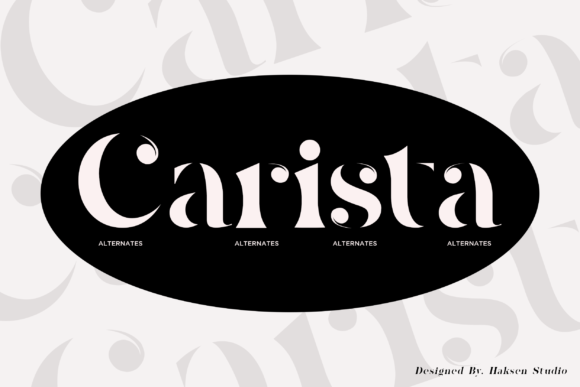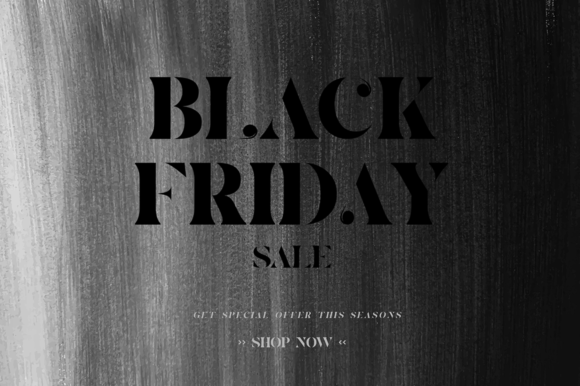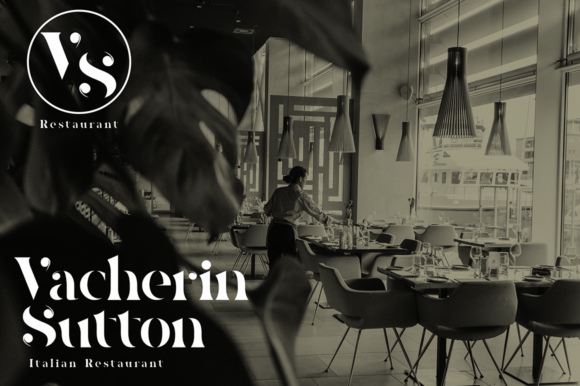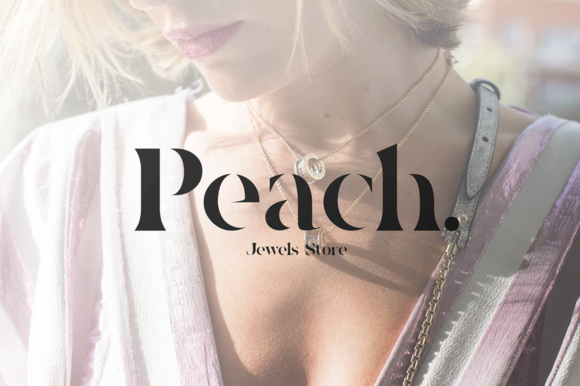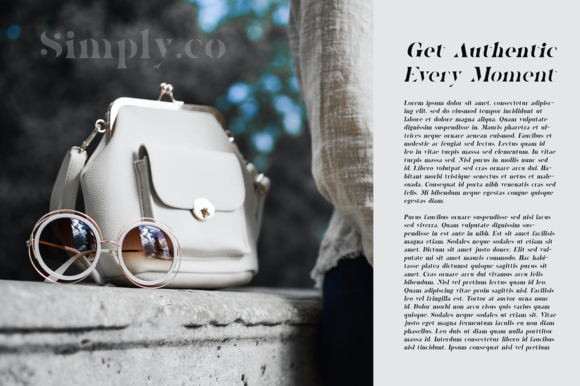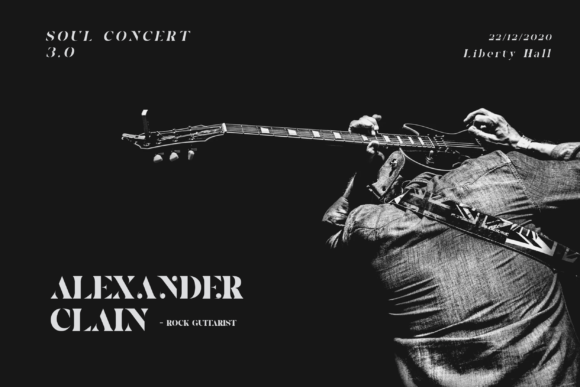
Introducing Carista Font: Elevate Your Designs with Elegance and Sophistication
In the world of typography, a font can make or break a design. For designers and crafters seeking a modern and elegant serif font, Carista Font is an exceptional choice. With its refined lines and classic appeal, Carista is perfect for a wide range of applications, from logos and wedding invitations to headings, t-shirts, and more.
What Makes Carista Font Stand Out?
Carista Font boasts a unique blend of modernity and sophistication, making it an ideal choice for designers looking to add a touch of elegance to their work. Its serif design lends a sense of tradition and reliability, while its clean lines and precise curves give it a contemporary feel. This versatile font can be used in various contexts, ensuring your designs always look polished and professional.
Versatility at Its Best: Use Cases for Carista Font
One of the key benefits of Carista Font is its incredible versatility. Here are some of the many ways you can use this beautiful font:
• Logos: Create a lasting impression with a logo that exudes elegance and sophistication.
• Wedding Invitations: Add a touch of romance and luxury to your wedding invitations and save-the-date cards.
• Headings: Elevate your blog posts, articles, and website content with stylish and readable headings.
• T-Shirts: Design eye-catching apparel with a font that’s both modern and timeless.
• Letterhead: Give your business correspondence a professional boost with elegant letterhead.
• Signage: Make your signs stand out with a font that’s clear, readable, and visually appealing.
• Labels: Add a touch of sophistication to your product labels and packaging.
• News: Use Carista Font for newspaper articles, online news sites, and magazine layouts.
• Posters: Create stunning posters for events, promotions, and advertising campaigns.
• Badges: Design custom badges for events, conferences, and workshops.
Why Designers and Crafters Love Carista Font
Carista Font has quickly become a favorite among designers and crafters due to its exceptional quality and versatility. Here are some reasons why:
• Elegant Design: Carista Font features a beautiful, modern design that’s perfect for creating sophisticated and stylish designs.
• High-Quality: With precise curves and clean lines, Carista Font is a high-quality font that will elevate your designs.
• Easy to Read: The font’s clear and readable design makes it perfect for body text, headings, and more.
• Customizable: With various weights and styles, you can customize Carista Font to suit your design needs.
Tips for Using Carista Font Effectively
To get the most out of Carista Font, here are some tips for using it effectively:
• Pair with Other Fonts: Experiment with pairing Carista Font with other fonts to create visually appealing combinations.
• Adjust Font Sizes: Play with different font sizes to create hierarchy and emphasis in your designs.
• Use for Headings: Use Carista Font for headings and titles to add a touch of elegance to your designs.
• Experiment with Colors: Try out different colors and textures to add depth and interest to your designs.
Carista Font is a modern and elegant serif font that’s perfect for designers and crafters looking to elevate their designs. With its versatile design, high-quality curves, and easy readability, Carista Font is an excellent choice for a wide range of applications. Whether you’re creating logos, wedding invitations, headings, or more, Carista Font is sure to impress. So why wait? Give Carista Font a try today and take your designs to the next level!